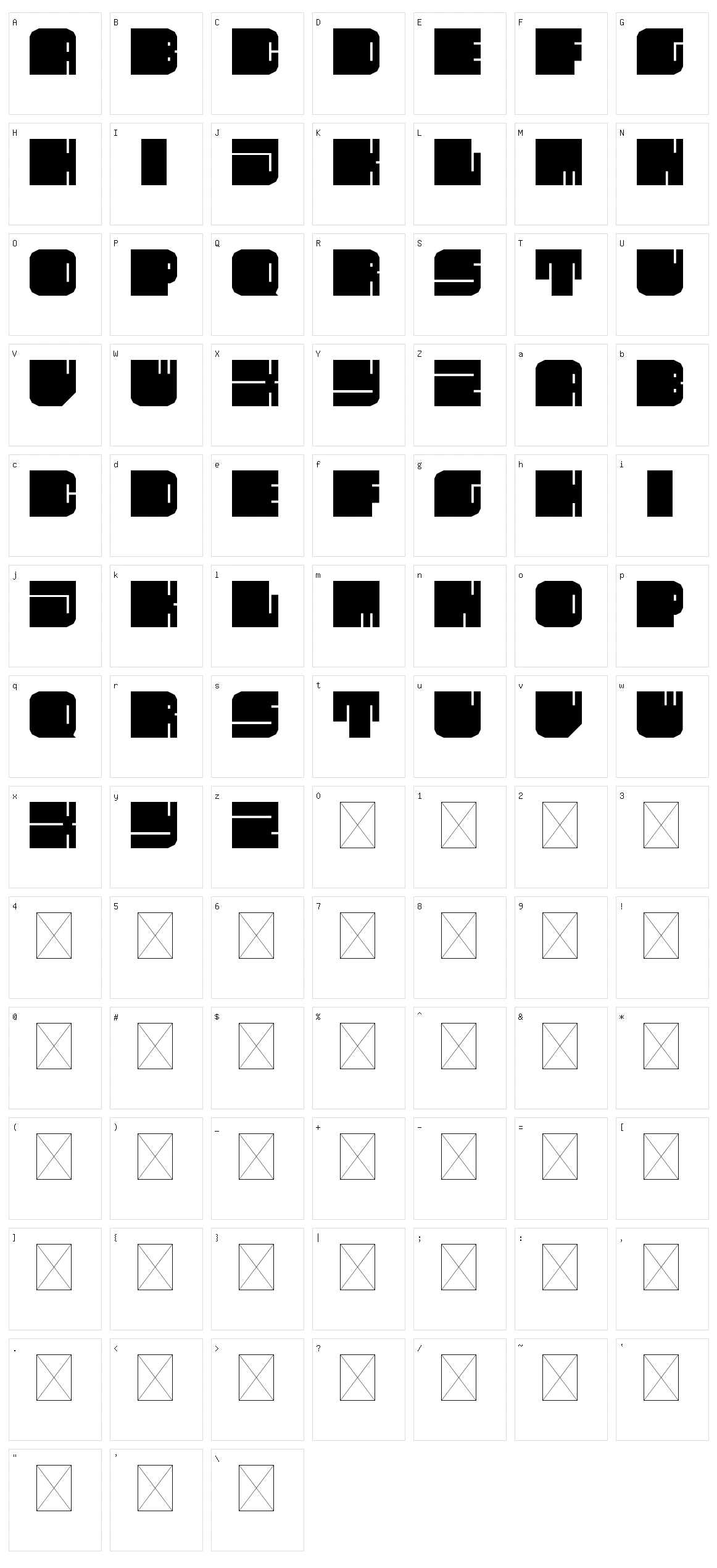
The free font Fleshy is carefully designed by EyeCone, showcasing a thoughtful balance of creativity and usability and falls under the Groovy font style. When you download the ZIP file, it contains only 3097.35 KB of font files, making it lightweight and quick to download. Please review the license details below to understand permitted usage and distribution rights. If license information is not available, we recommend using this font for personal projects only or contacting the author directly for commercial usage permissions.